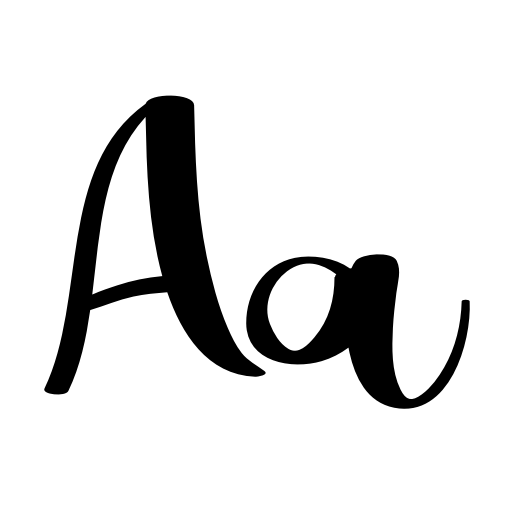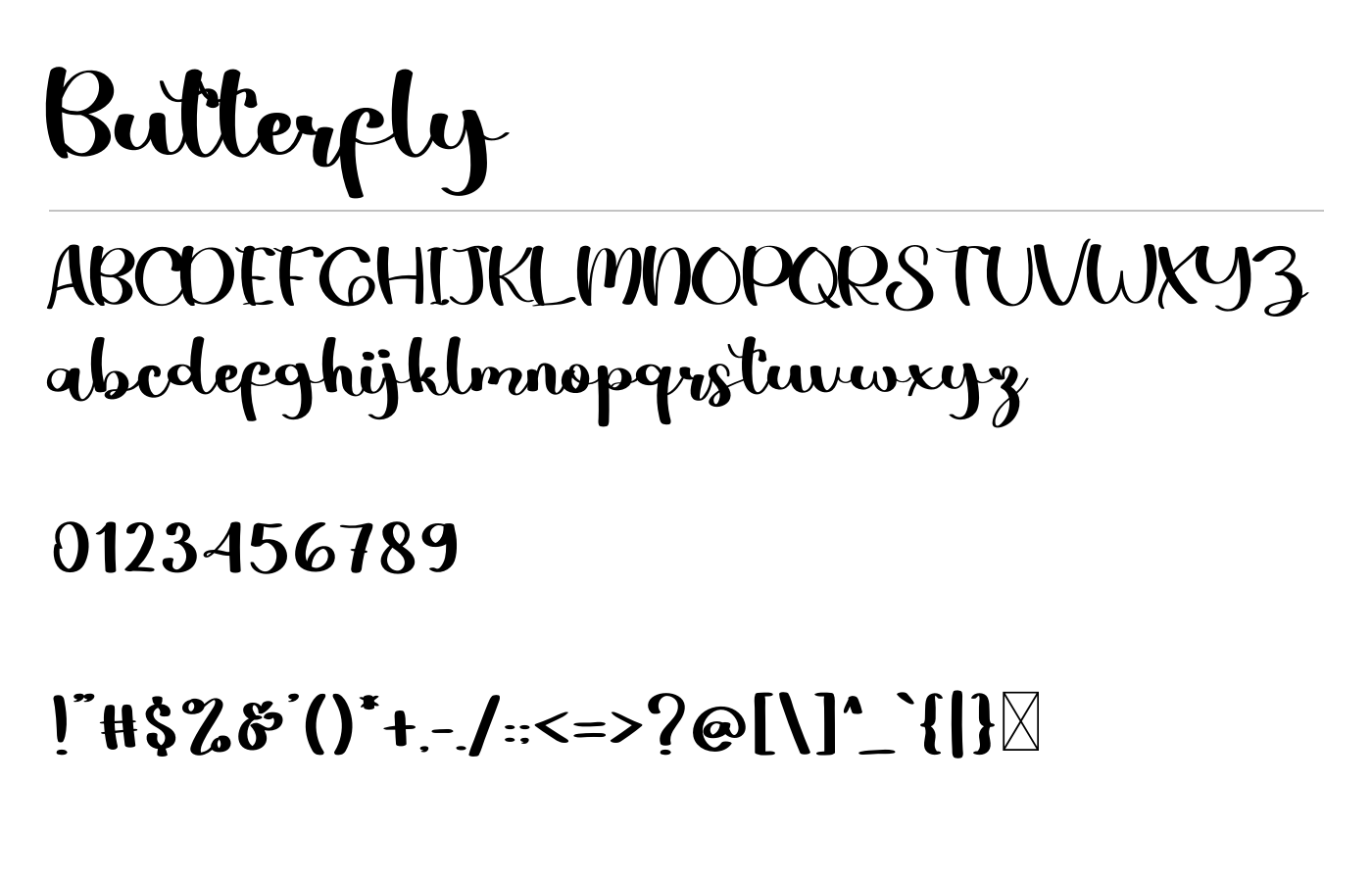
Butterfly Font is a playful and elegant script typeface with smooth, flowing strokes and a lively personality. Its bold weight and whimsical letterforms make it perfect for creative branding, invitations, and headlines where a warm, charming touch is desired. This font combines legibility with a handcrafted feel, giving designs a joyful and approachable style.
Butterfly Font
About Butterfly Font